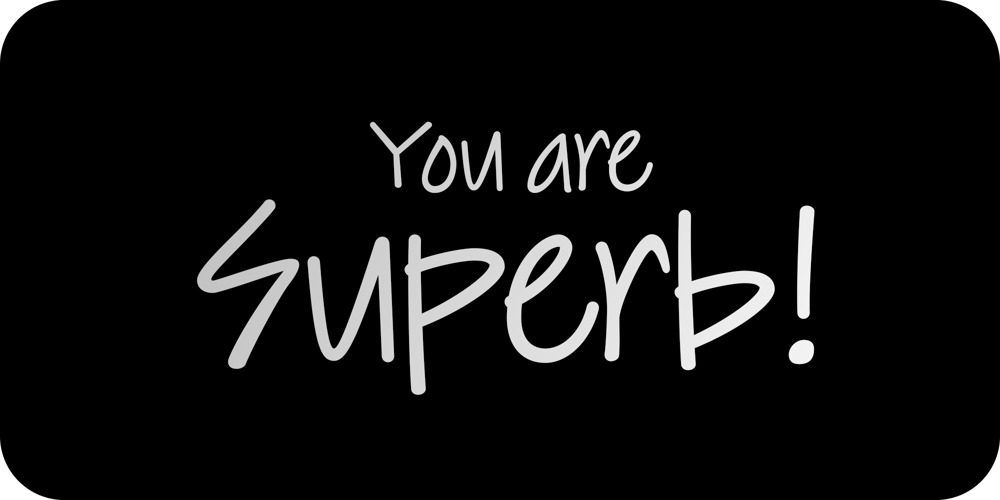
You are Superb Font Family was designed by Dain Choi and published by DainType. You are Superb contains 1 styles and family package options. Nicely scribbled script font. It has a masculine, wild and wild mood. It also has a feeling of being torn. It is good when you want to use a lively atmosphere because of the fast flow of strokes. It is good to use when you want a cool and striking design such as a bromide for a rock festival, an album cover for music, a beer package, or a beer logo.